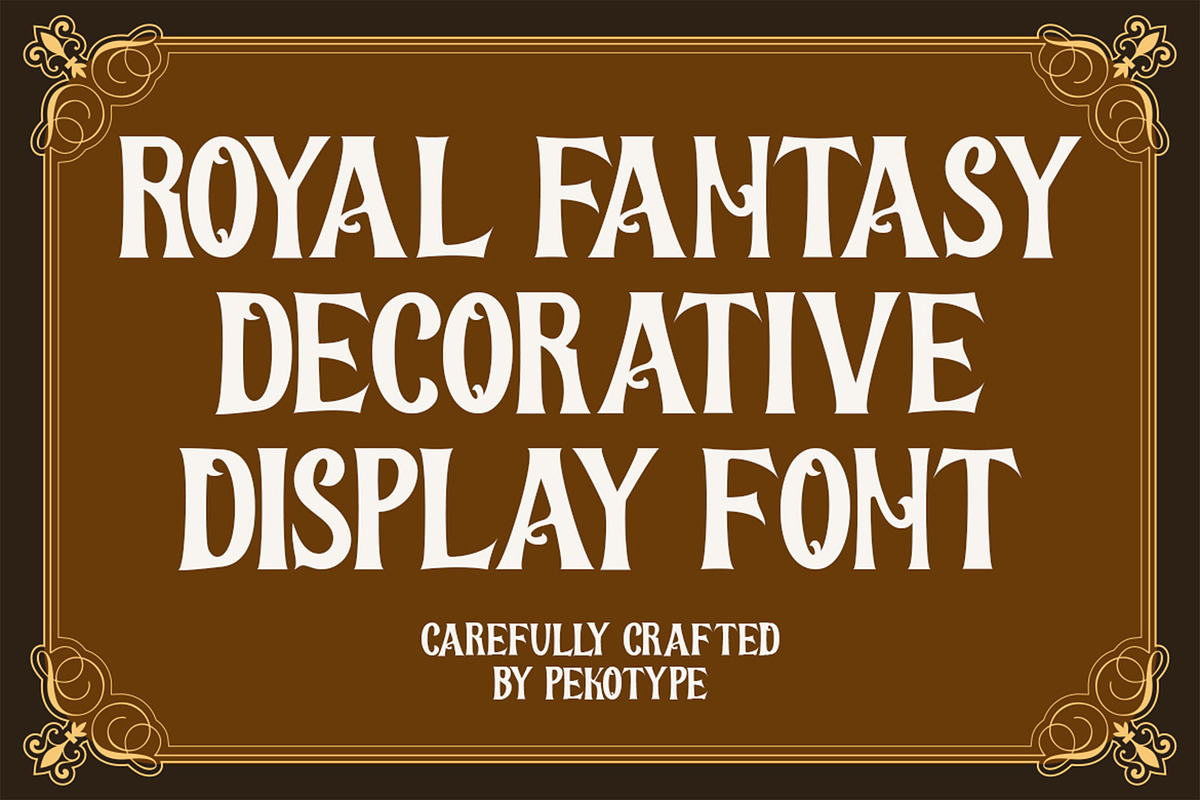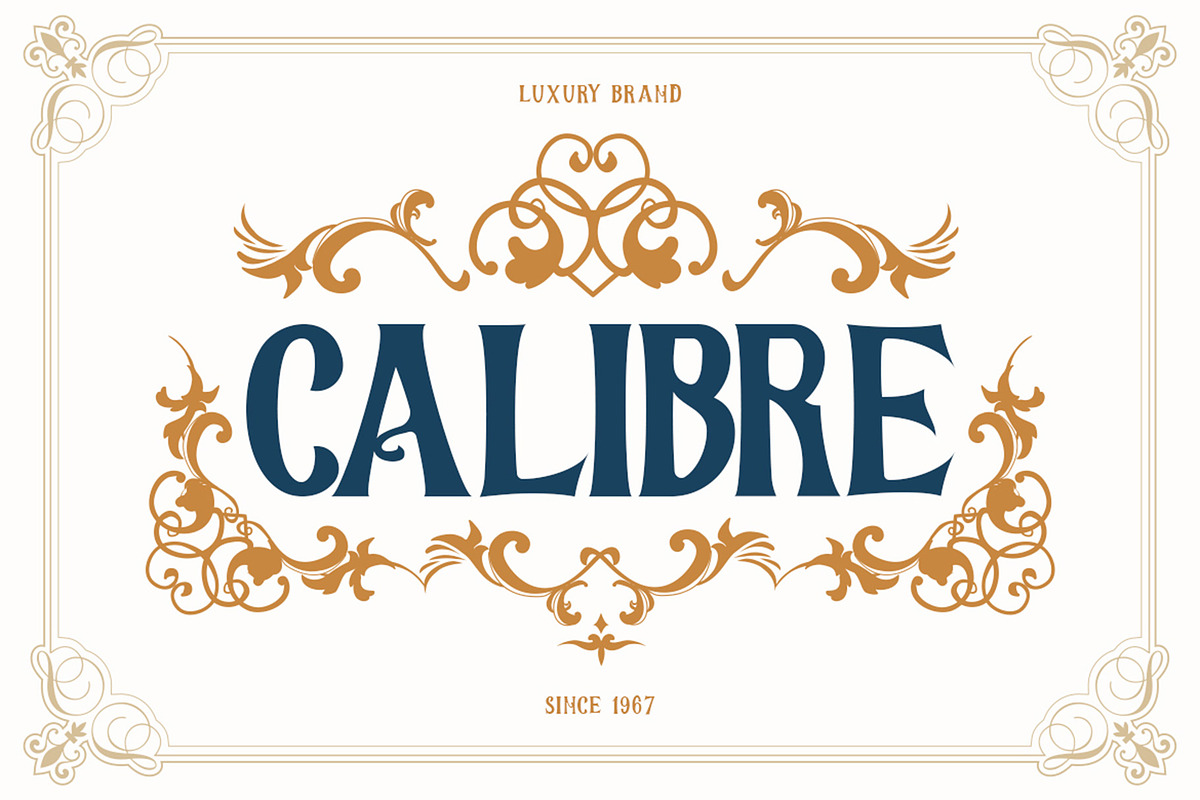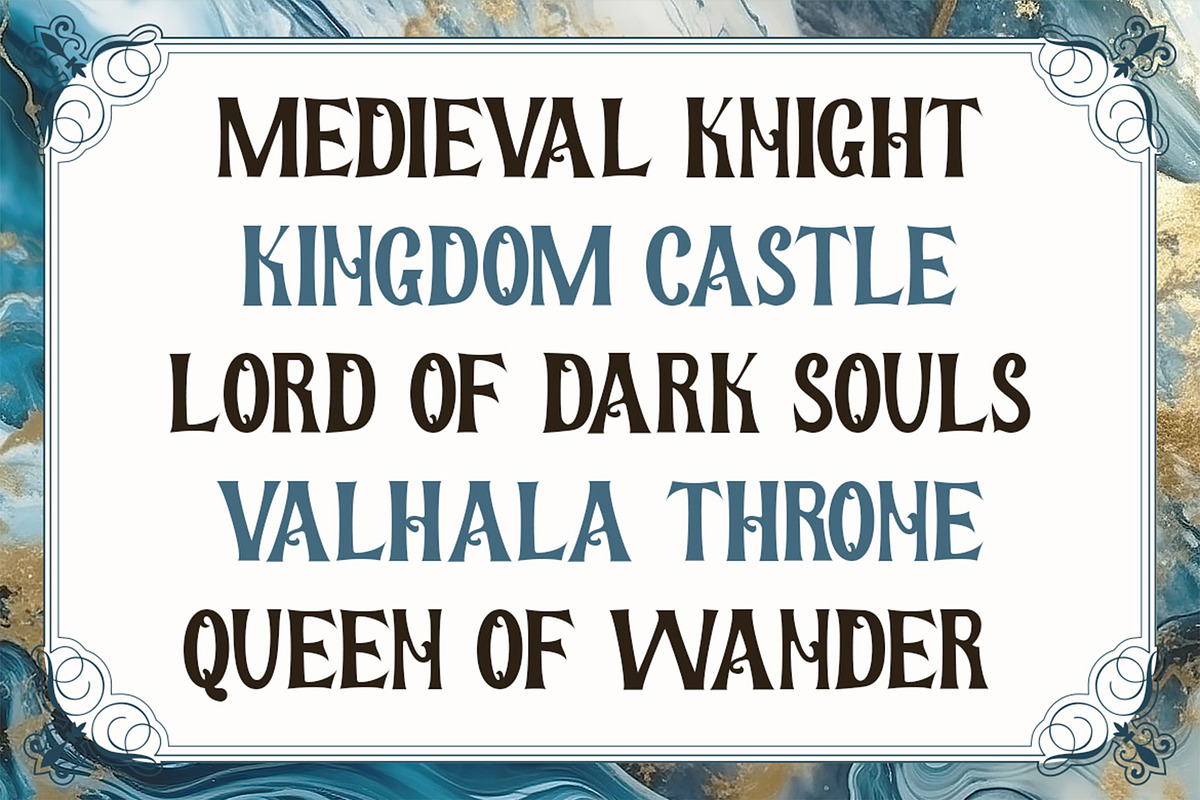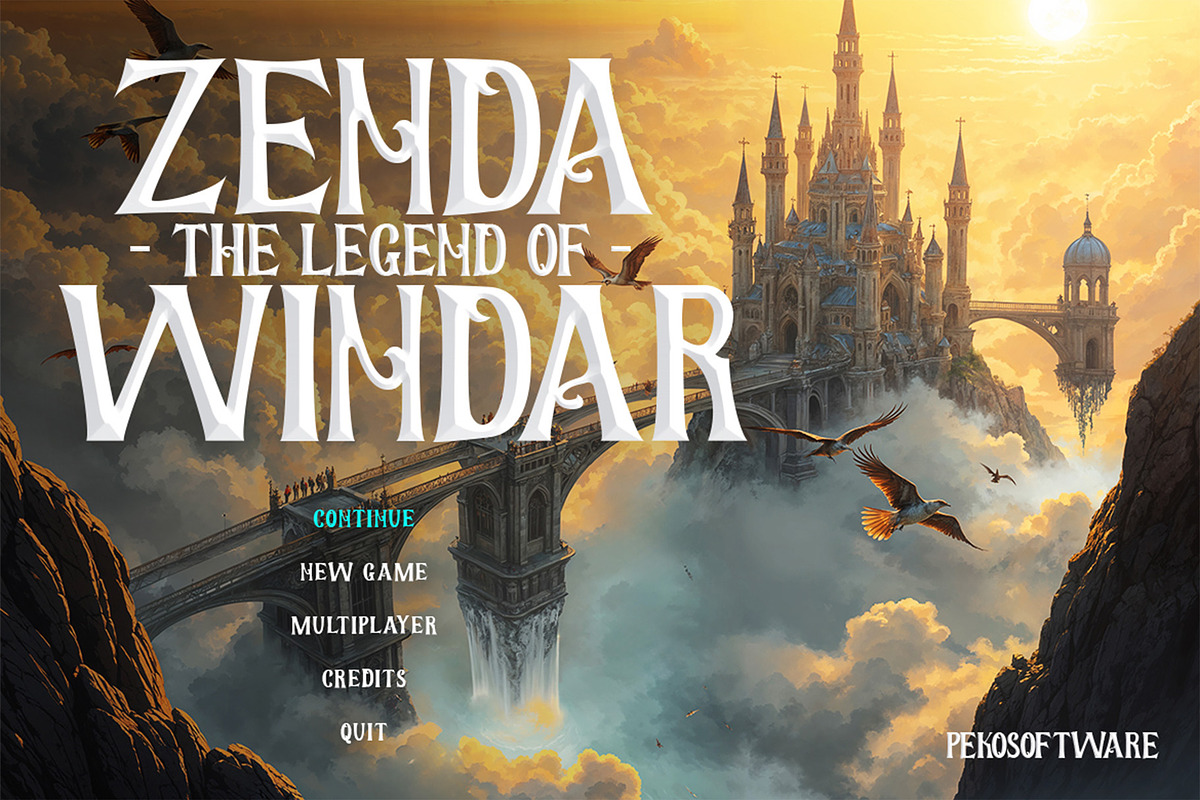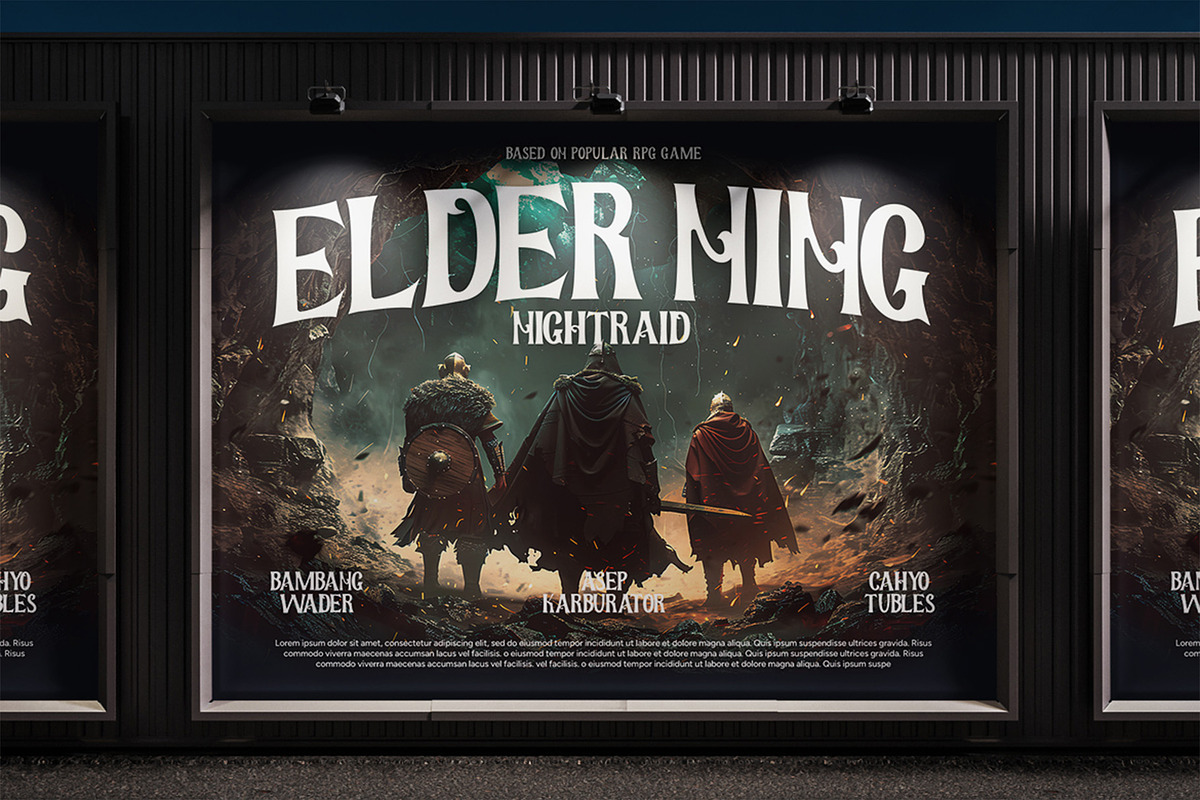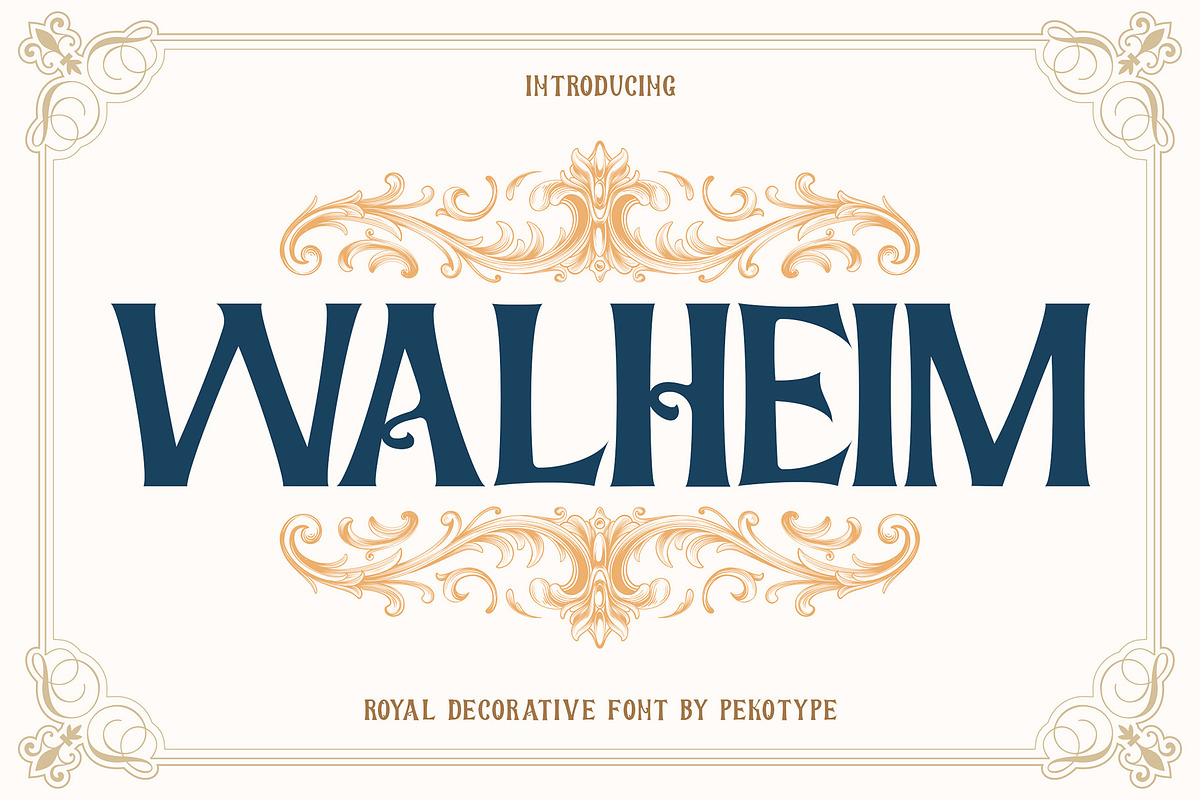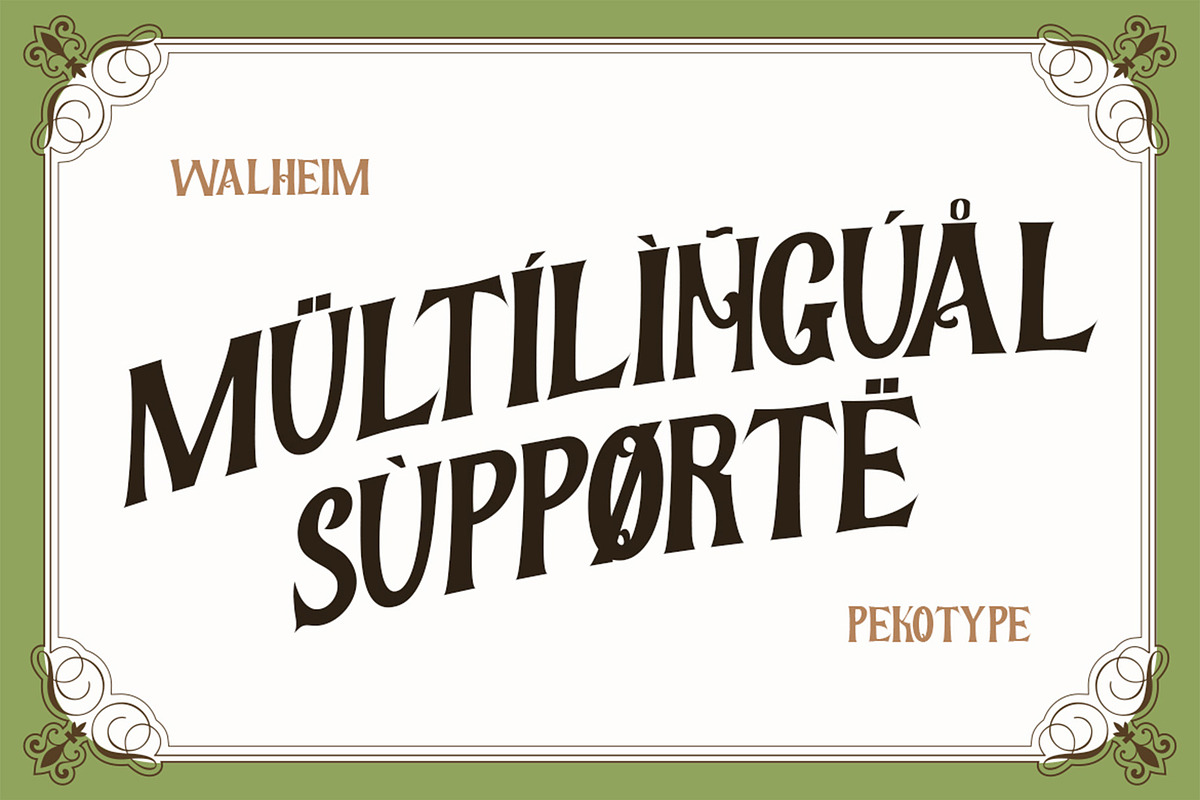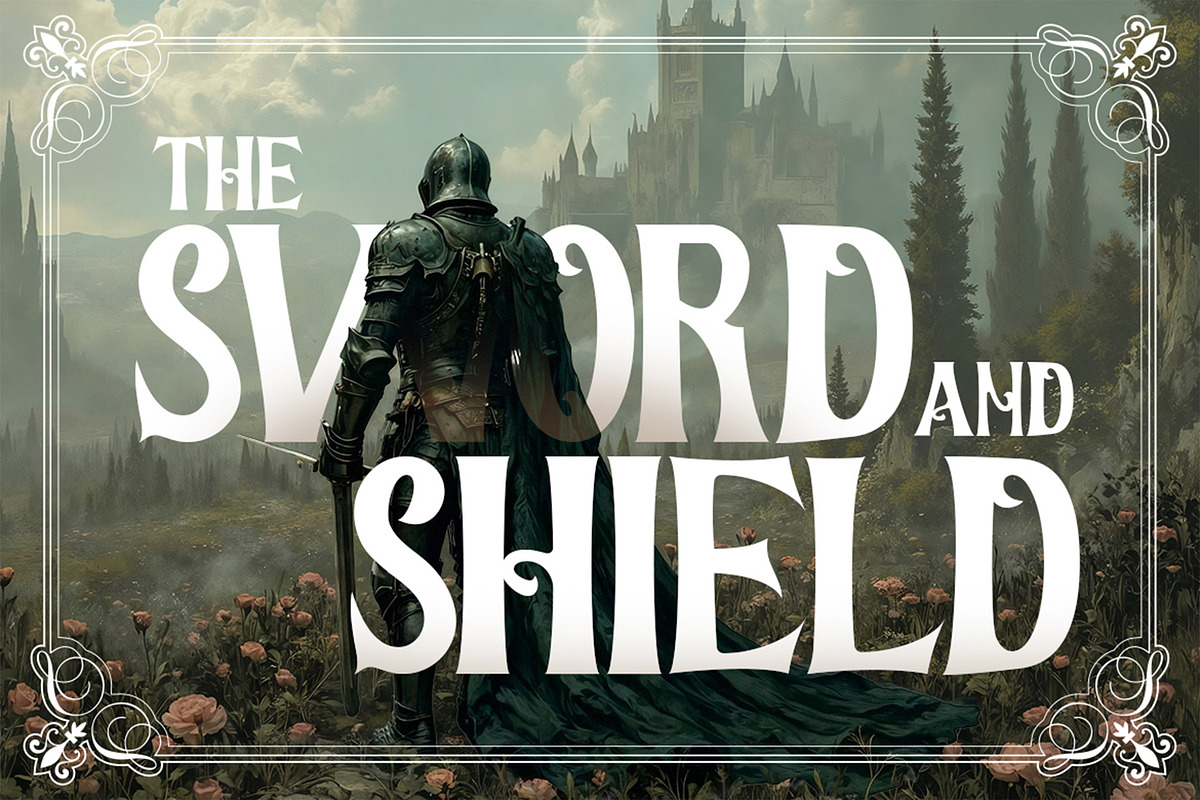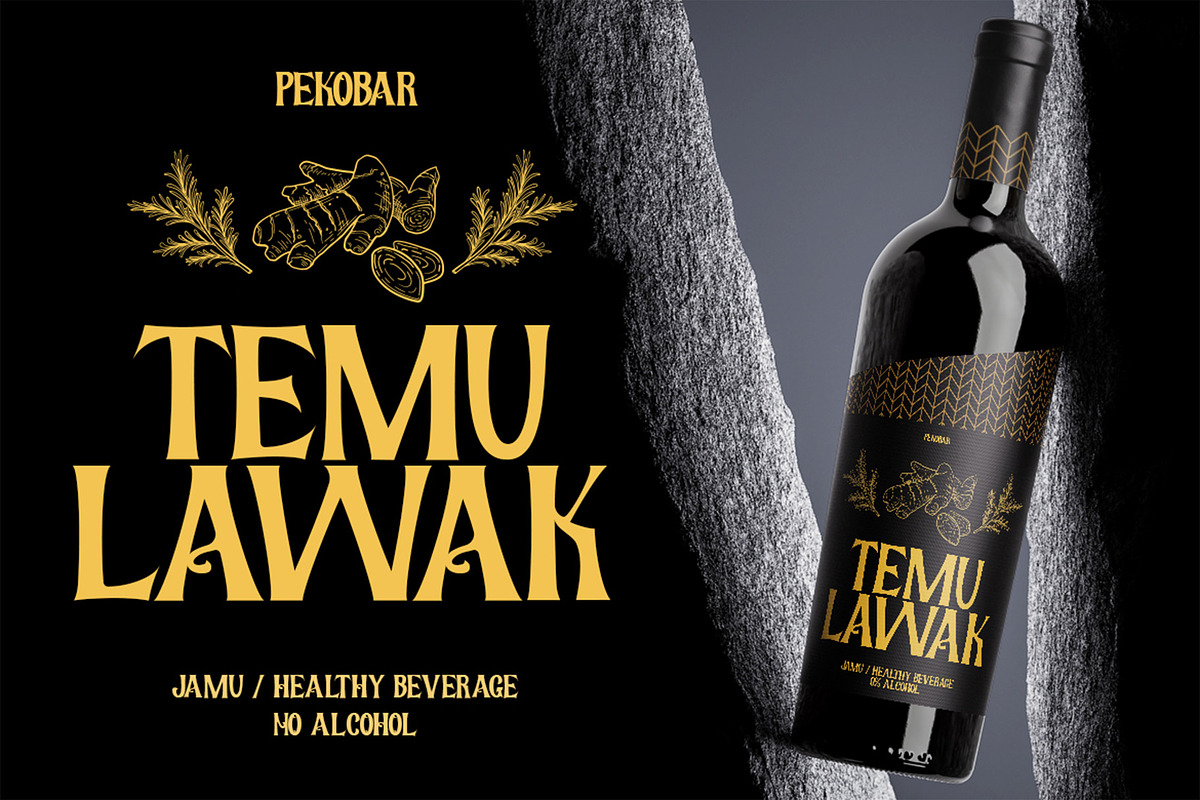
Walheim - Royal Elegant Fantasy Font
WALHEIM – A Bold Decorative Typeface for Fantasy & Royal Elegance
Step into a world of grandeur and magic with WALHEIM, a bold decorative display typeface that blends luxury, medieval charm, and fantasy elegance into one powerful font. Designed for creatives who seek a timeless yet unique aesthetic, WALHEIM exudes royal sophistication with classic curves, vintage details, and a strong, stylish presence.
Perfectly crafted for fantasy-themed designs, medieval-style branding, royal-inspired logos, epic game titles, luxury packaging, and promotional posters, WALHEIM delivers a striking visual impact across both digital and print media. Whether working on a dark fantasy RPG logo, a high-end product label, or a mystical social media campaign, this typeface ensures your design stands out with regal authority.
- Number, symbol, & punctuation
- Luxury Medieval & Fantasy Style
- Great for display and headline use
- Ideal for Game Design, Branding, Packaging, Posters & More
Make your project look legendary — WALHEIM is more than a font, it's a story waiting to be told.